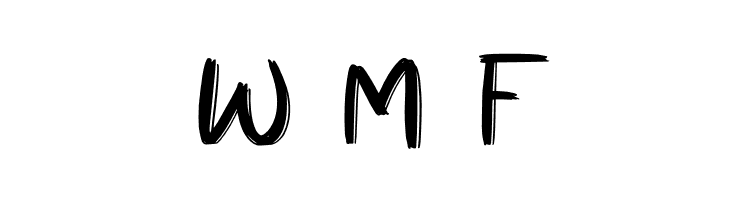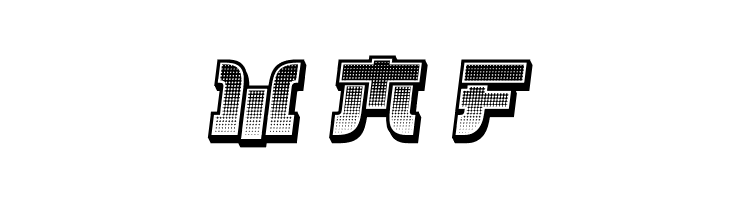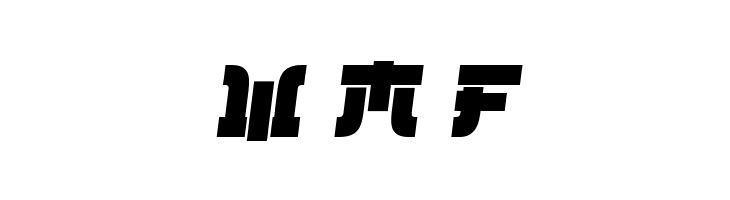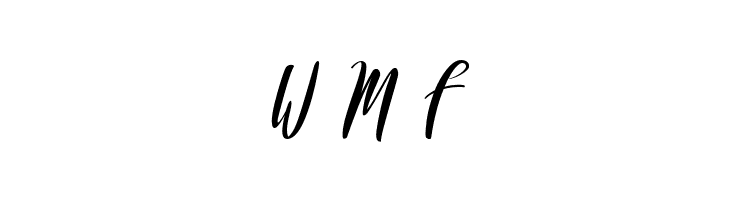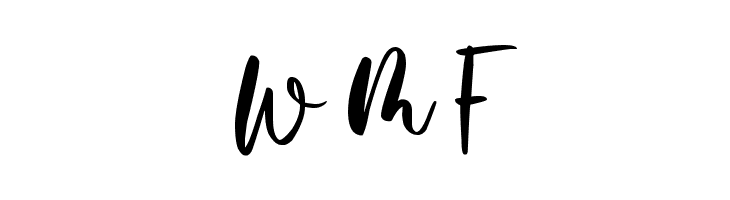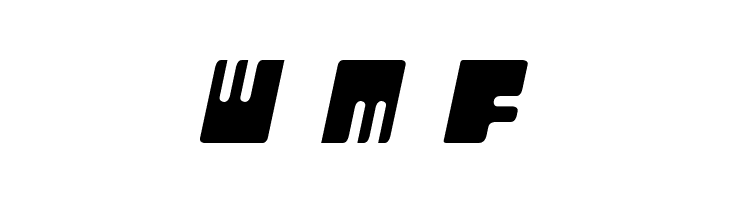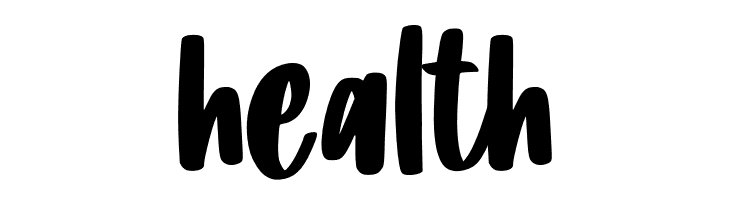
A modern, italic font with a sleek and professional appearance.
A thin, elegant italic font with a modern and minimalist style.
A bold, italicized handwritten font with dynamic strokes.
A lively and expressive handwritten font with dynamic strokes and playful loops.
A dynamic, flowing script font with an elegant, handwritten style.
A playful, handwritten font with bold, dynamic strokes and a casual vibe.
A dynamic, cursive script font with fluid, connected letters and varying stroke thickness.
A casual, handwritten font with a dynamic and flowing style.
A bold, flowing script font with interconnected letters and a lively, dynamic style.
A playful and whimsical script font with flowing, interconnected letters.
A bold, handwritten font with a playful and energetic style.
A graceful, fluid handwritten script with elegant cursive connections.
A flowing, cursive font with elegant, sweeping lines and a hand-drawn appearance.
A bold, italicized font with a gradient effect and thick outlines, ideal for decorative use.
A bold, italicized font with a futuristic and dynamic design.
A dynamic and elegant script font with a fluid, handwritten style.
A bold, playful handwritten font with fluid strokes and a casual style.
A lively and dynamic script font with fluid, connected letterforms and moderate stroke contrast.
A bold, brush-style script font with dynamic, hand-painted strokes.
A bold, cursive script font with elegant, flowing letterforms.
A bold, hand-drawn font with a playful and dynamic style.
A bold, brush-style font with dynamic and expressive strokes.
A playful, handwritten script font with bold, dynamic characters.
A bold, dynamic script font with a modern and flowing style.
A bold, italicized font with a modern and dynamic style.
A bold, flowing script font with elegant curves and dynamic strokes.
A bold, angular font with a retro gaming aesthetic.
A dynamic handwritten font with fluid strokes and playful elegance.
A bold, flowing script font with dynamic, connected characters.
A bold, expressive font with sweeping, calligraphic strokes.
An artistic font with bold, sweeping strokes and dynamic movement.
A bold, handwritten-style font with a playful and dynamic appearance.
A bold, italic handwritten font with a vintage, distressed texture.
A bold, playful, and hand-drawn style font with dynamic curves.